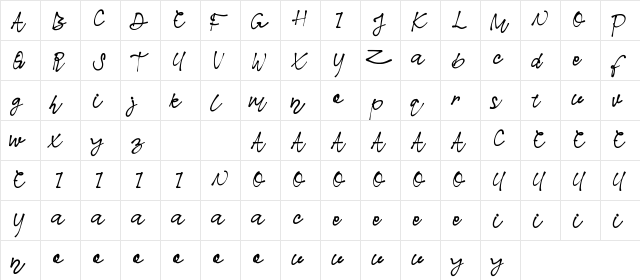
Nielsen Owen Demo Script Regular
| Foundry | Edric Studio |
| Designer | Yasri Ainun & Suci Anita |
Design Context for Nielsen Owen Demo Script Typeface
Nielsen Owen Demo Script flows with the natural rhythm of handwritten lettering, making it ideal for designs that call for warmth and personal expression.